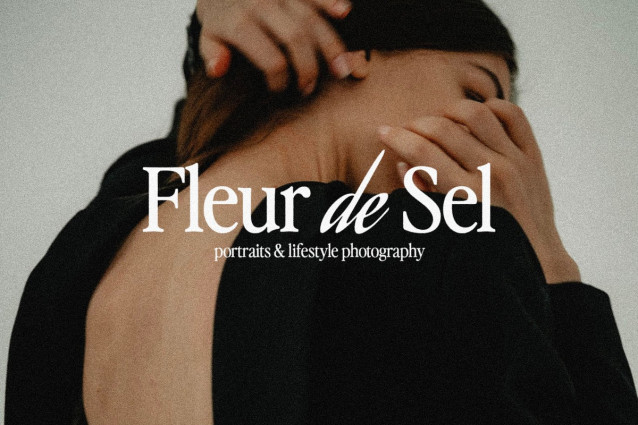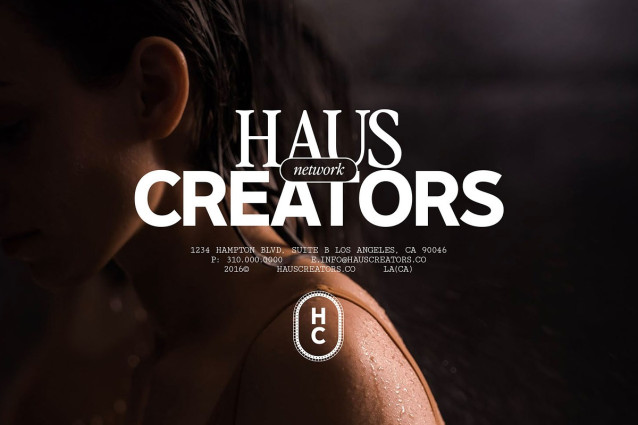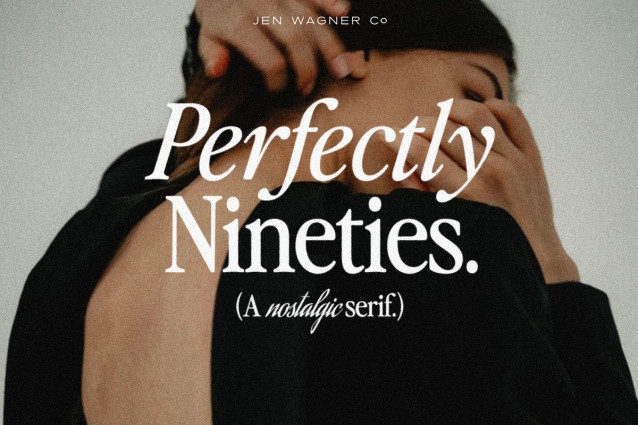
Perfectly Nineties Font Family
Perfectly Nineties Font Family is a beautifully nostalgic upper and lowercase typeface that looks incredible in both large and small settings as a display and body text.
I’ve been loving combining the regular and italic, whether all in one word (like in the Missfits samples) or in body text!